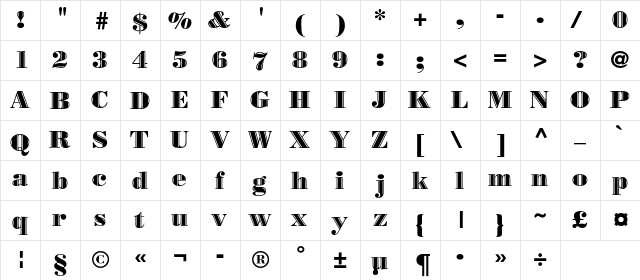
BorjomiDecor B Regular Font Preview
BorjomiDecor B Regular
BorjomiDecor B Regular Font Details
Design Context for BorjomiDecor B Typeface
BorjomiDecor B takes a measured approach to typography — its balanced proportions and neutral character make it a reliable workhorse for both digital and print work.